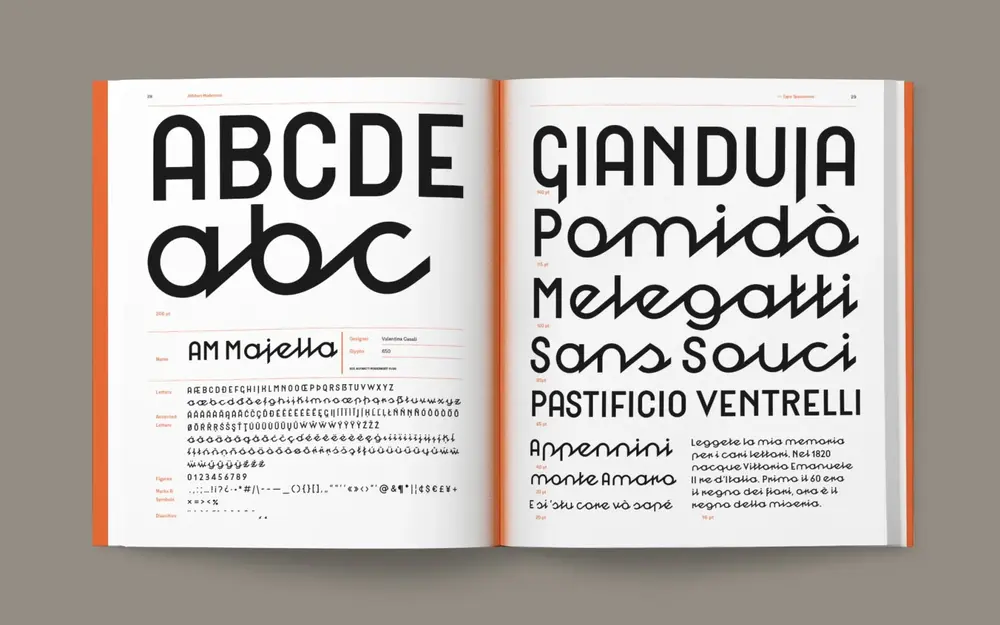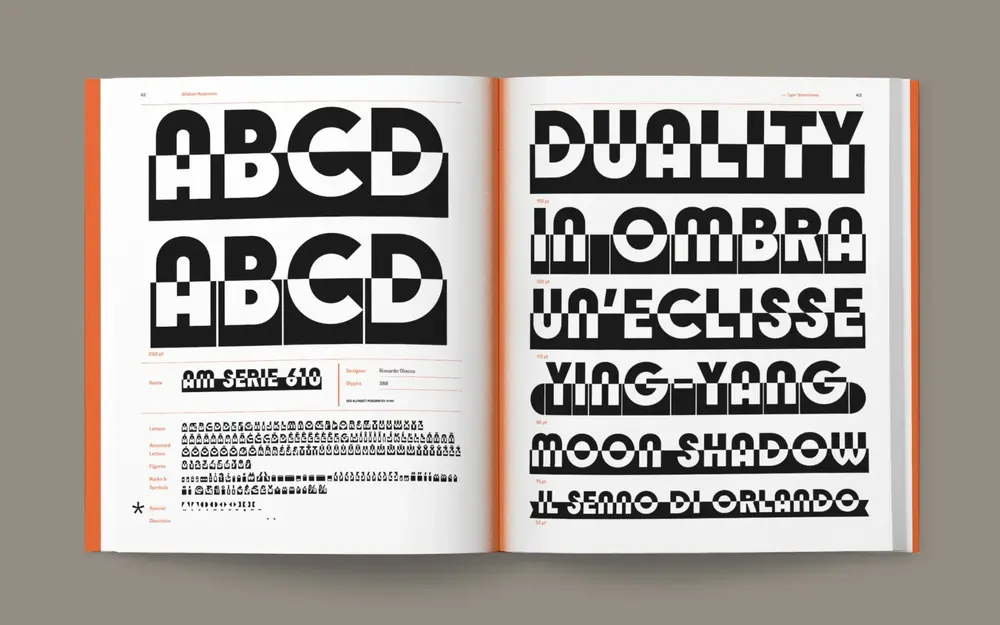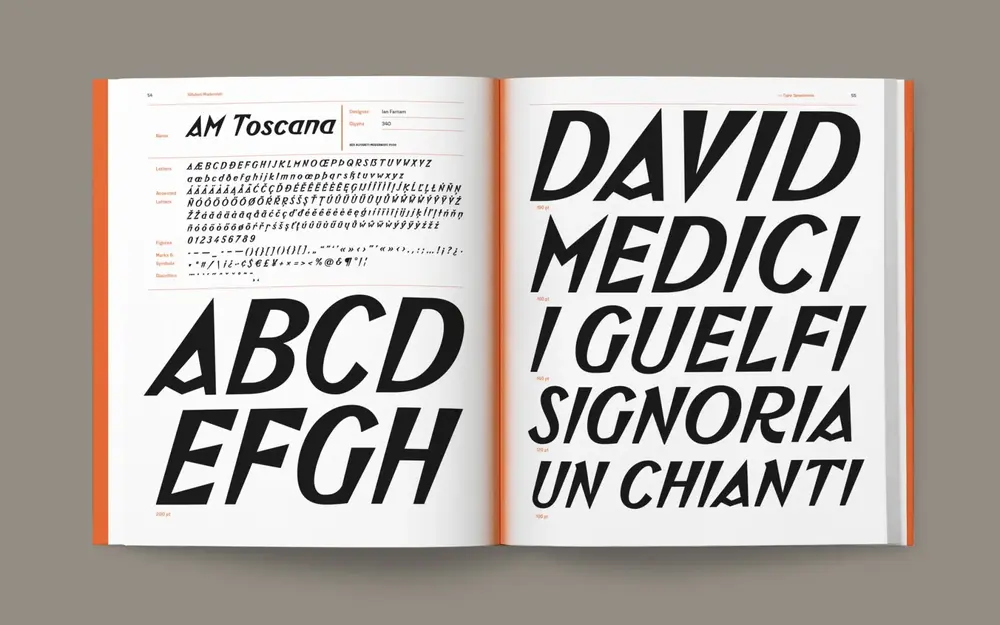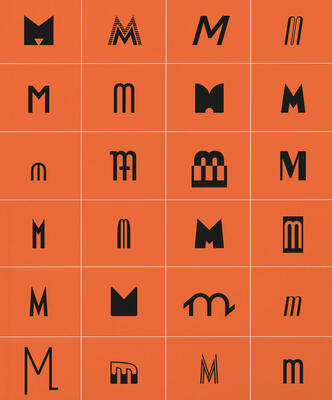
Alfabeti Modernisti Type Specimens illustrates twenty-five digital revivals based on wooden and lead typefaces produced in Italy in the 1930s and 1940s, documenting a research and enhancement project that intertwines memory and design and gives new voice to a little-explored chapter of Italian graphic design.
Very popular at the time but now forgotten, the typefaces have been recovered by Luca Lattuga over a period of more than ten years. Reissued by the CAST type foundry, available for purchase at c-a-s-t.com and also available on Adobe Fonts, these geometric, sometimes vernacular, floral, highly expressive, often rationalist-inspired typefaces recount a crucial period in 20th-century Italian typography.
Their digital revival—the result of a selection from Lattuga’s complete collection published in the volume Alfabeti Modernisti Italiani to coincide with the release of this sample book—gives graphic designers and type designers full access to a unique and precious typographic heritage.